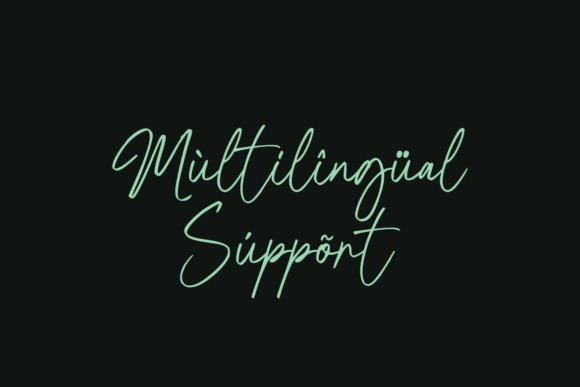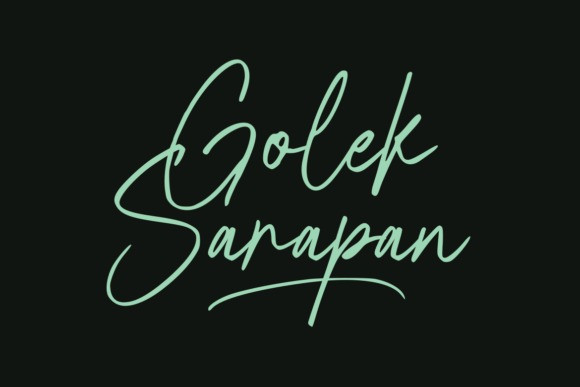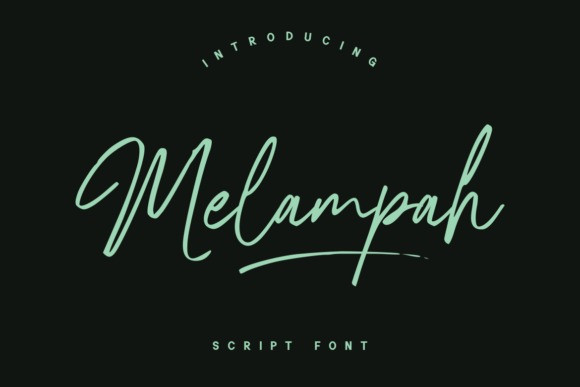
Melampah Font
Melampah Font, a luxury handwritten that has its own unique style & modern look. This typeface is perfect for an elegant & luxury logo, book or movie title design, fashion brand, magazine, clothes, lettering, quotes, and so much more.